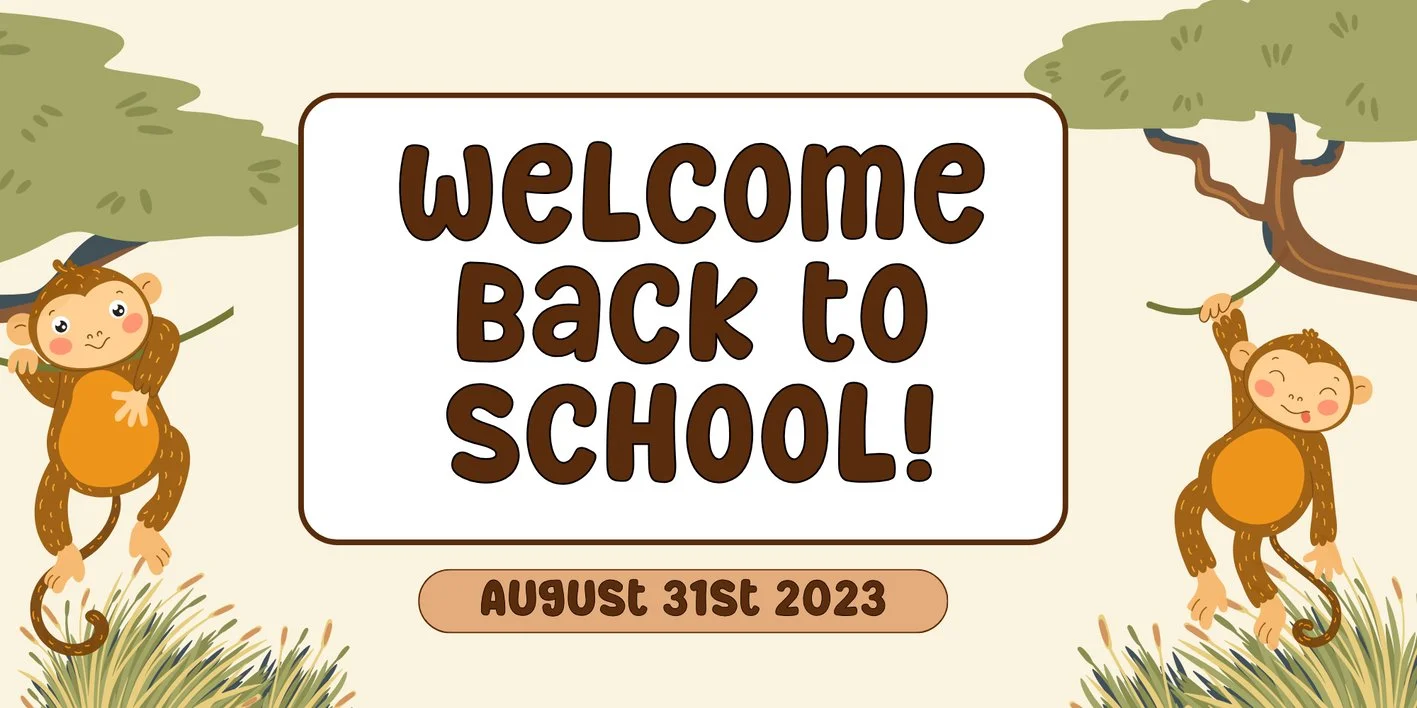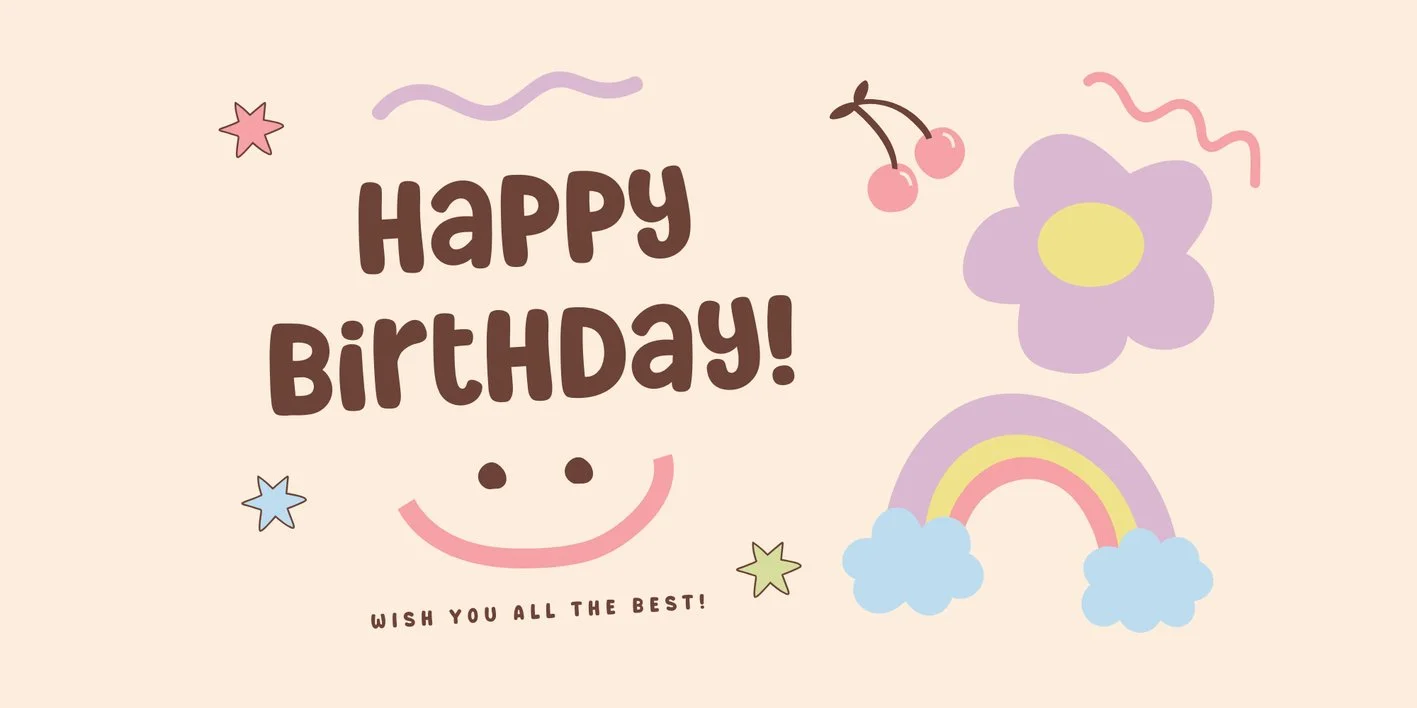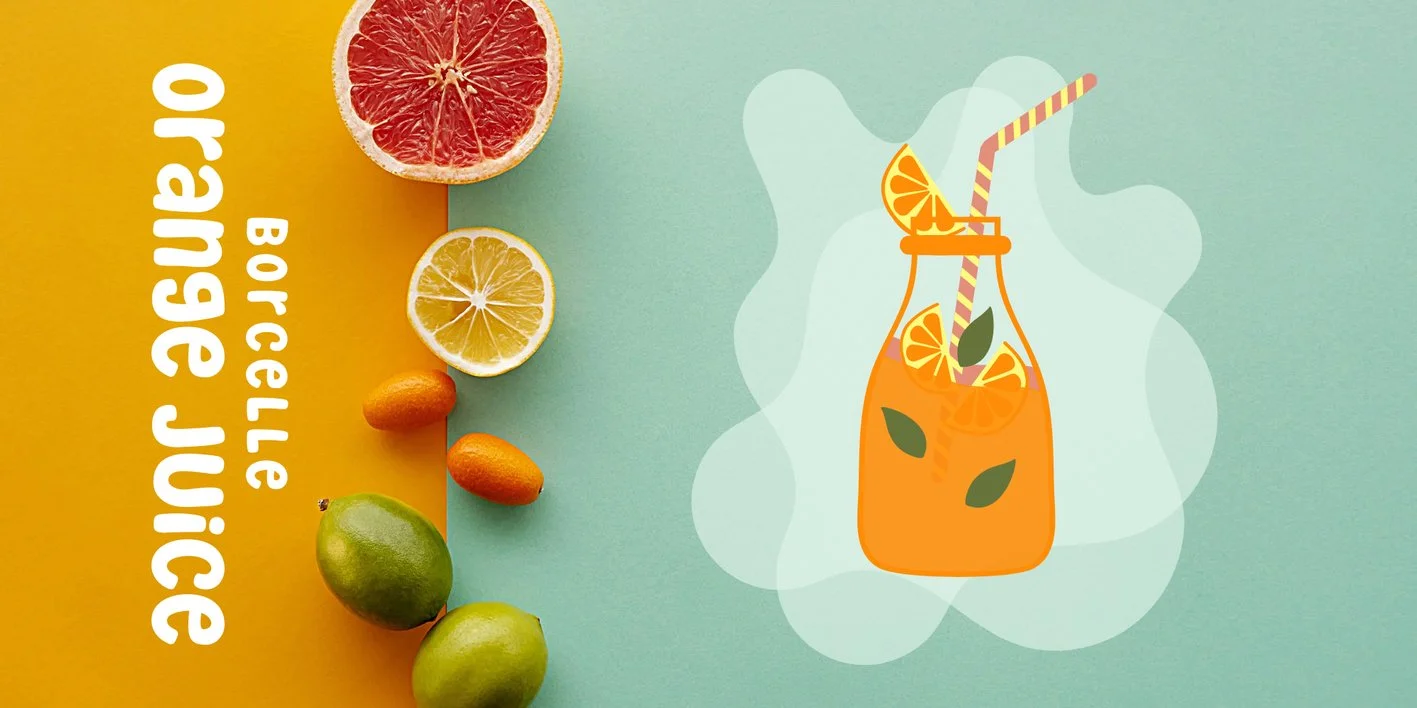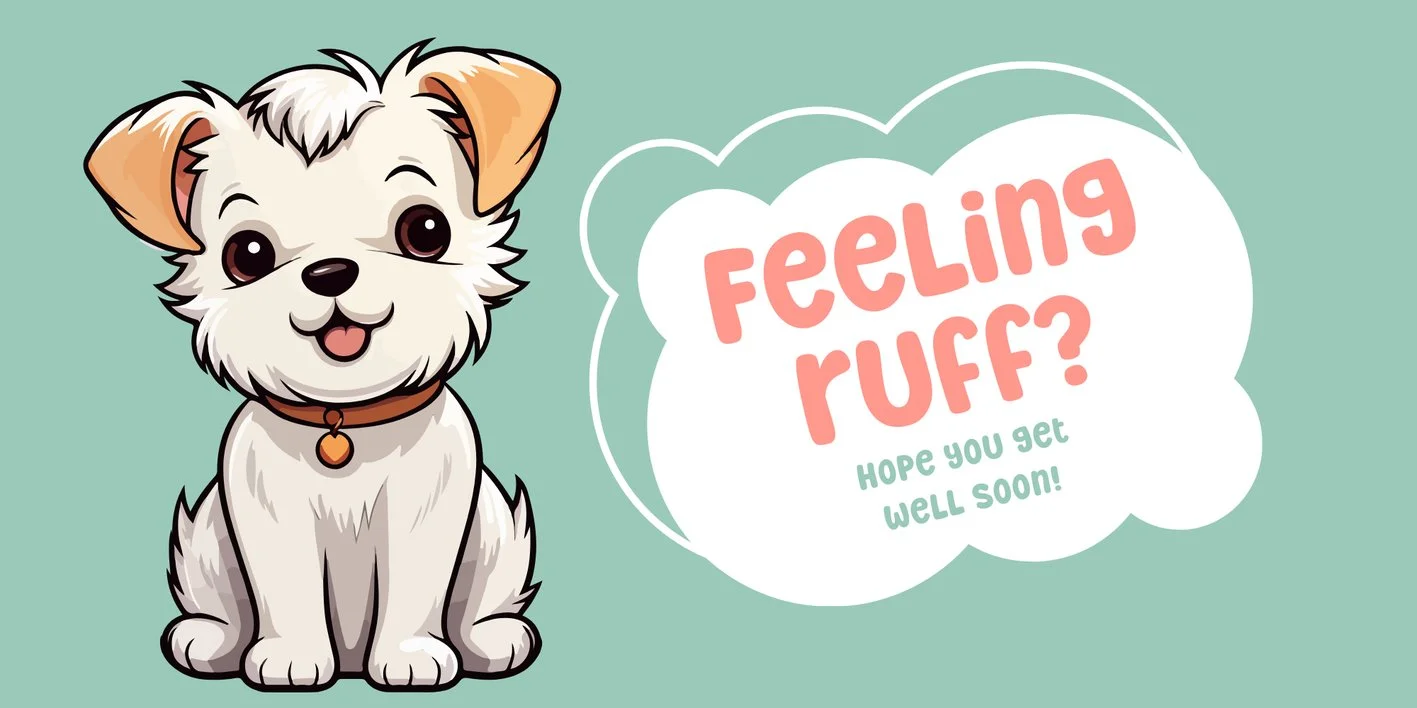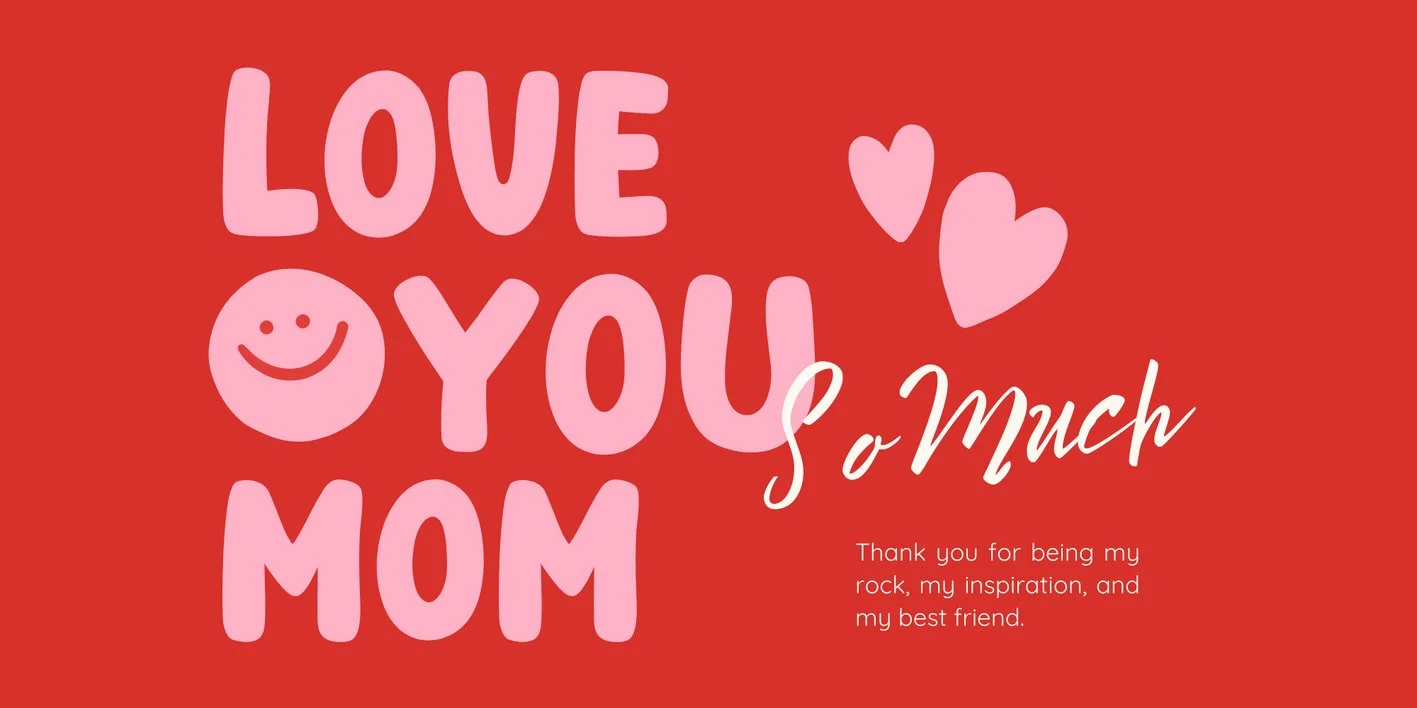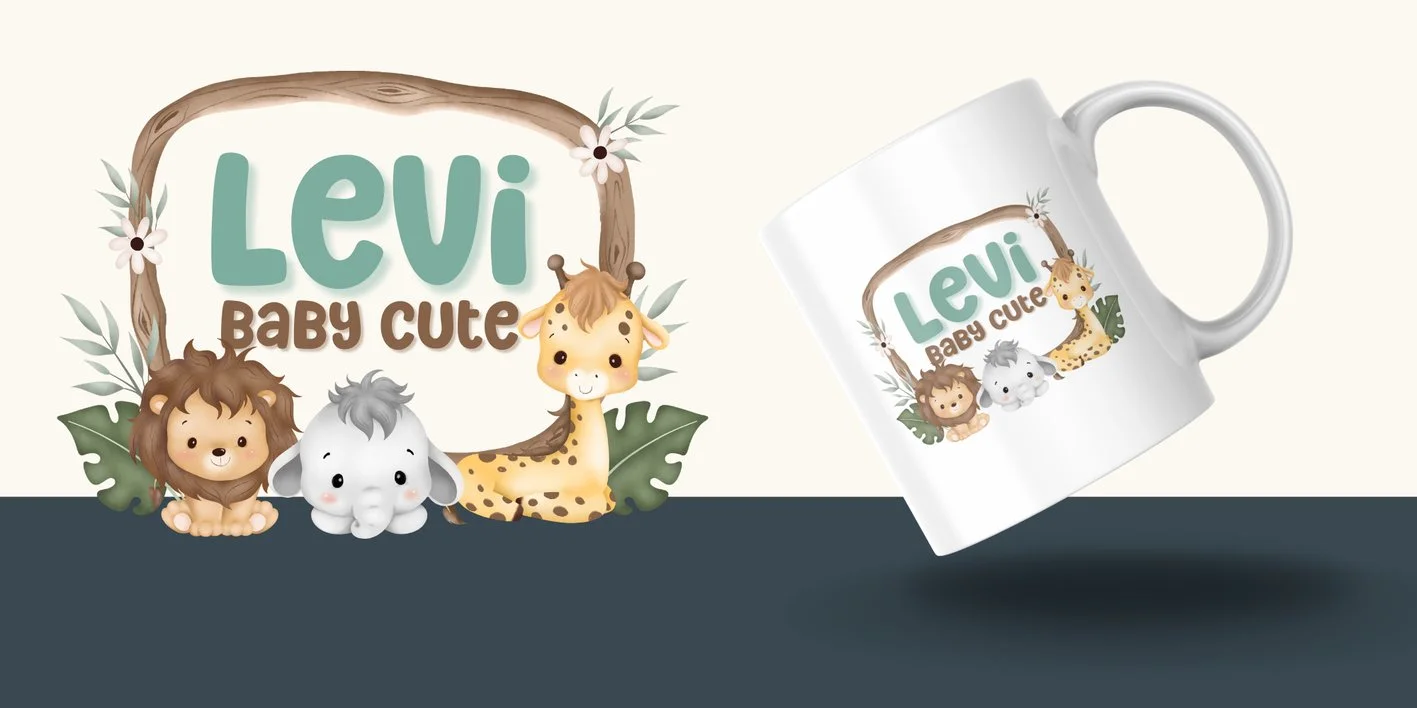
Fox Pudding Font
Fox Pudding Font is a bold, playful display font that adds a captivating and energetic touch to your designs. Its main feature is its vibrant and expressive design, allowing you to create attention-grabbing headlines, t-shirt typography, banners, product labels, and more. With its versatility and eye-catching presence.